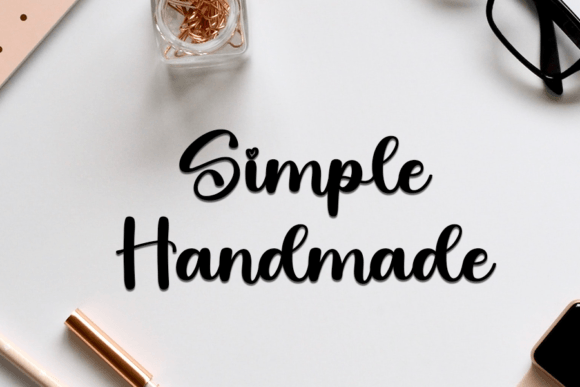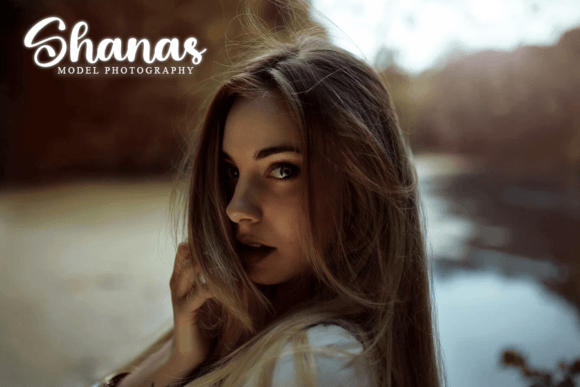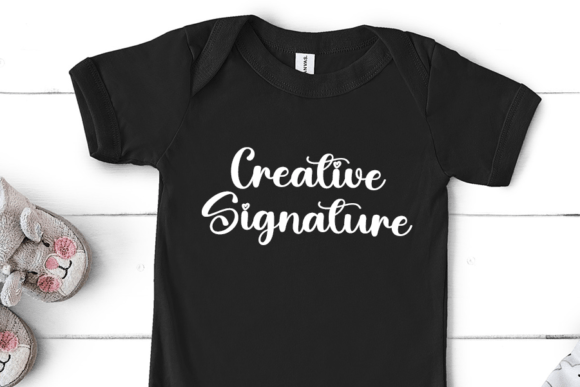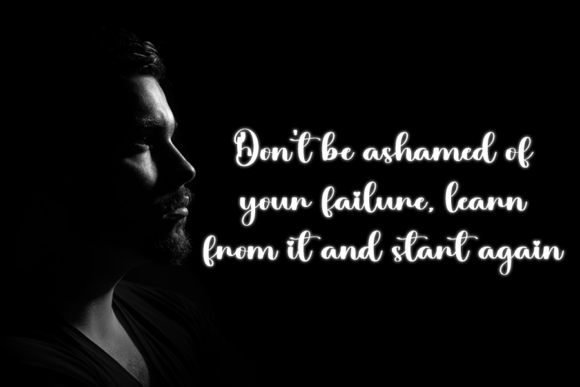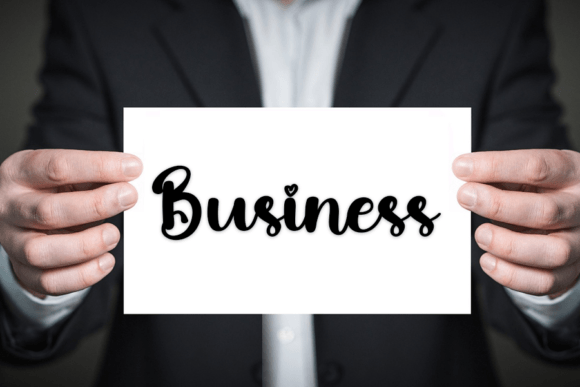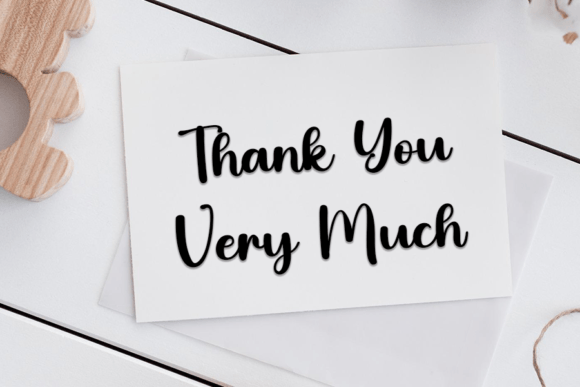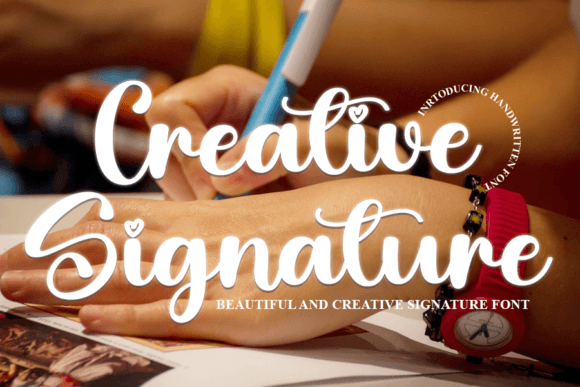
Introducing Creative Signature: A Modern Handwritten Font with Classic Charm
Are you looking for a font that adds a touch of elegance and sophistication to your design projects? Look no further than Creative Signature, a cool handwritten font with a modern vibe and spotless form. Inspired by classic calligraphy, this font is designed to enhance the beauty of your projects with its balanced and varied strokes.
The Perfect Balance of Style and Legibility
Creative Signature is not too thin and not too thick, making it the perfect balance of style and legibility. The font’s modern vibe is achieved through its clean and sleek lines, while its classic inspiration ensures that it remains timeless and versatile. Whether you’re working on a logo, branding project, or social media graphics, Creative Signature is the perfect choice.
Key Features of Creative Signature Font
- Modern Vibe: Creative Signature has a fresh and contemporary feel that’s perfect for modern designs.
- Spotless Form: The font’s clean and sleek lines ensure that it remains legible and easy to read.
- Balanced Strokes: The font’s balanced strokes are neither too thin nor too thick, making it perfect for a variety of design projects.
- Classic Inspiration: Inspired by classic calligraphy, Creative Signature has a timeless and elegant feel.
- Varied Letterforms: The font features varied letterforms that add a touch of uniqueness and personality to your designs.
Why Choose Creative Signature Font?
There are many reasons why Creative Signature font stands out from the rest. Here are a few:
- Unique and Creative: Creative Signature font is a one-of-a-kind font that’s sure to make your designs stand out.
- Easy to Read: The font’s clean and legible lines ensure that your message is communicated clearly and effectively.
- Versatile: Creative Signature font can be used for a variety of design projects, from logos and branding to social media graphics and more.
How to Use Creative Signature Font in Your Designs
Using Creative Signature font in your designs is easy. Here are a few tips to get you started:
- Pair it with Other Fonts: Creative Signature font pairs well with other fonts, so feel free to experiment with different combinations.
- Use it for Headings and Titles: The font’s bold and elegant strokes make it perfect for headings and titles.
- Add a Personal Touch: Use Creative Signature font to add a personal touch to your designs, such as in quotes or testimonials.
- Experiment with Colors: The font’s clean lines and classic inspiration make it versatile enough to work with a variety of colors and color schemes.